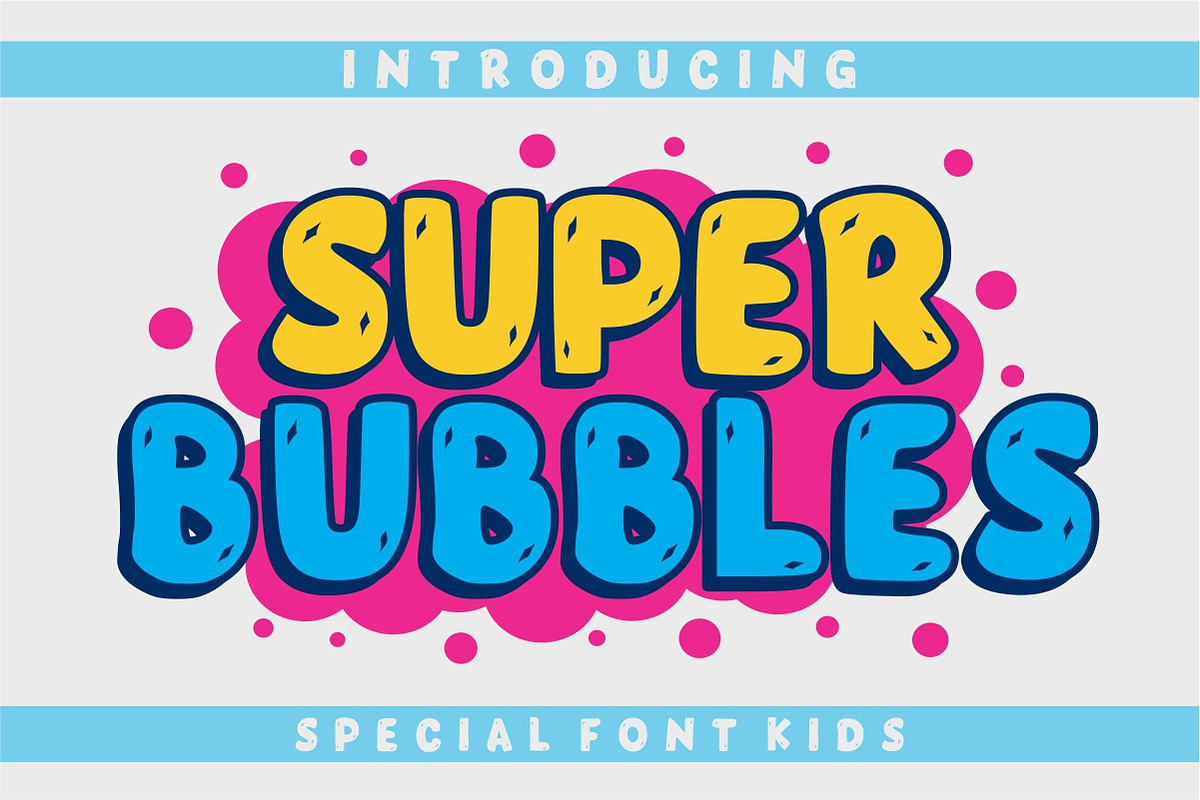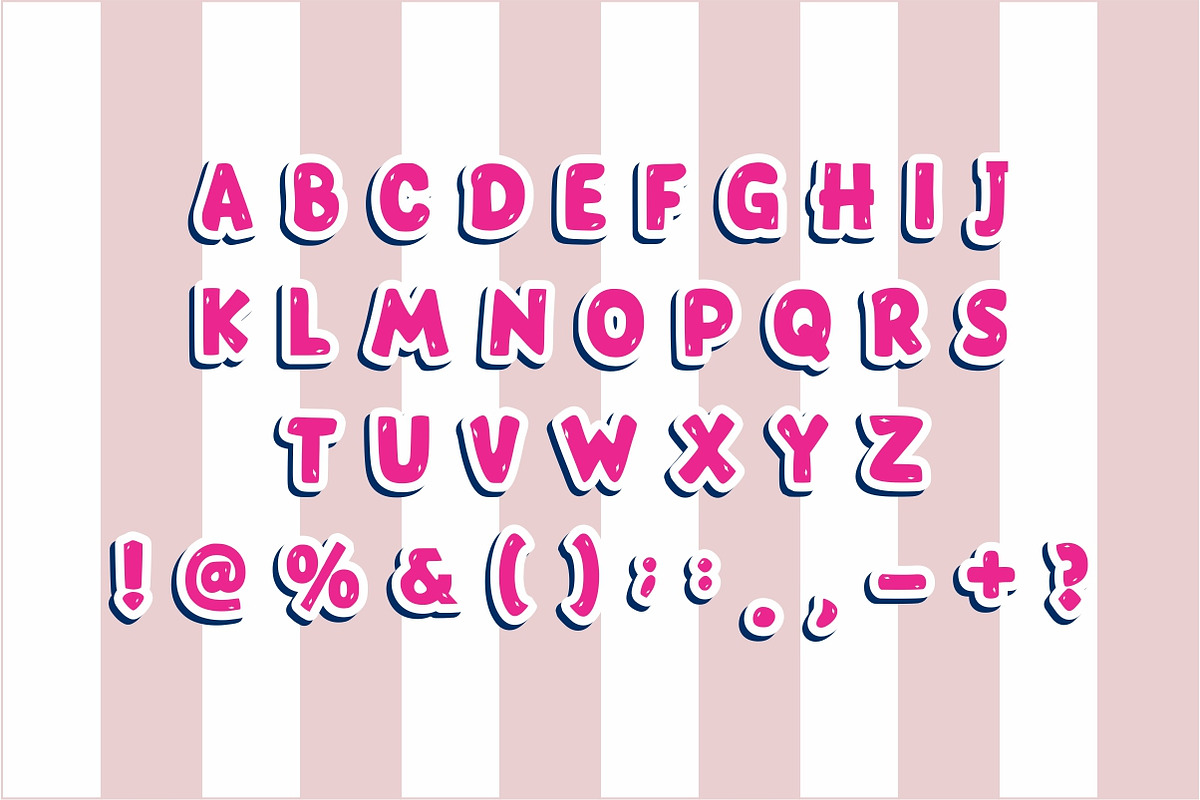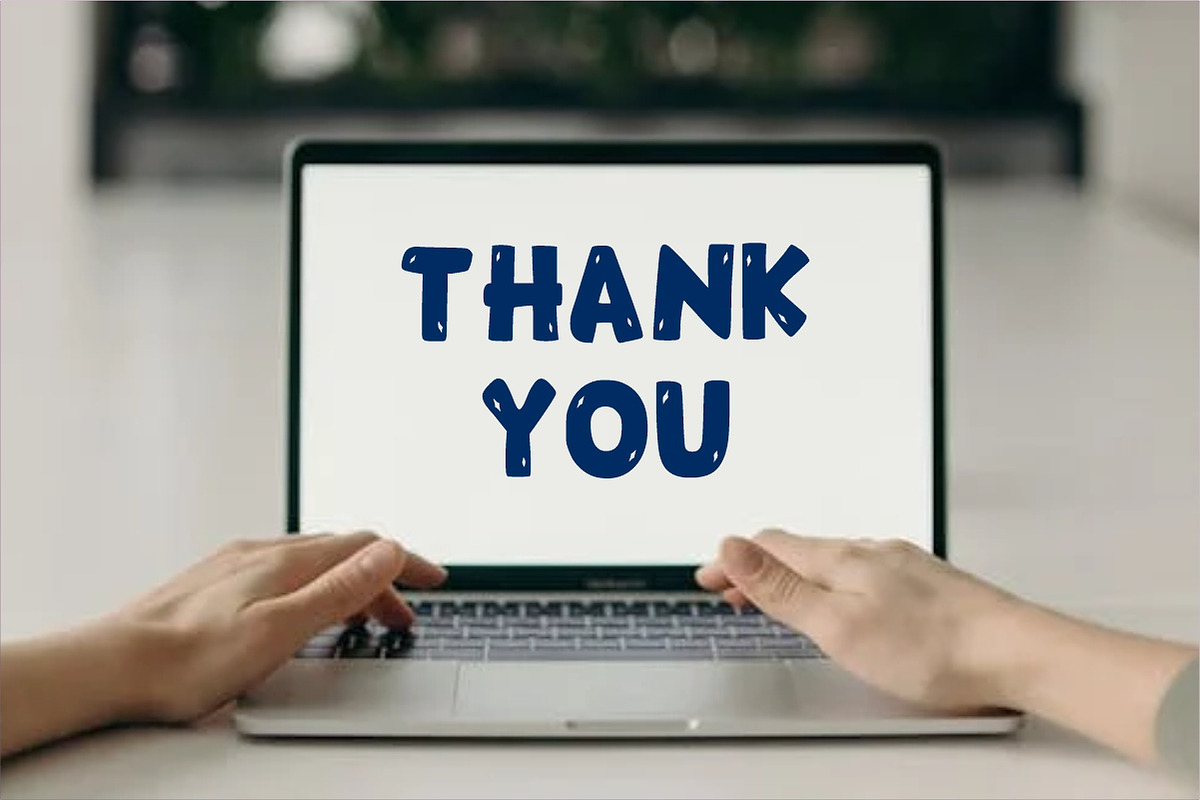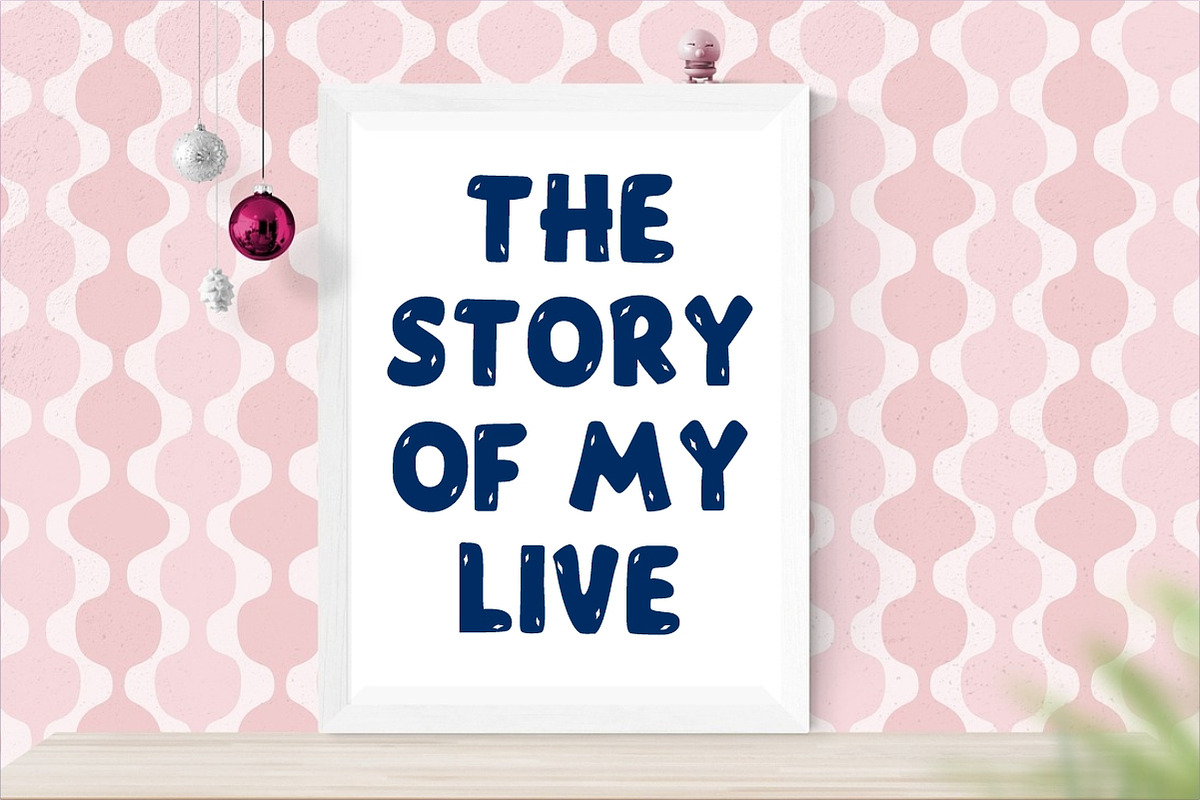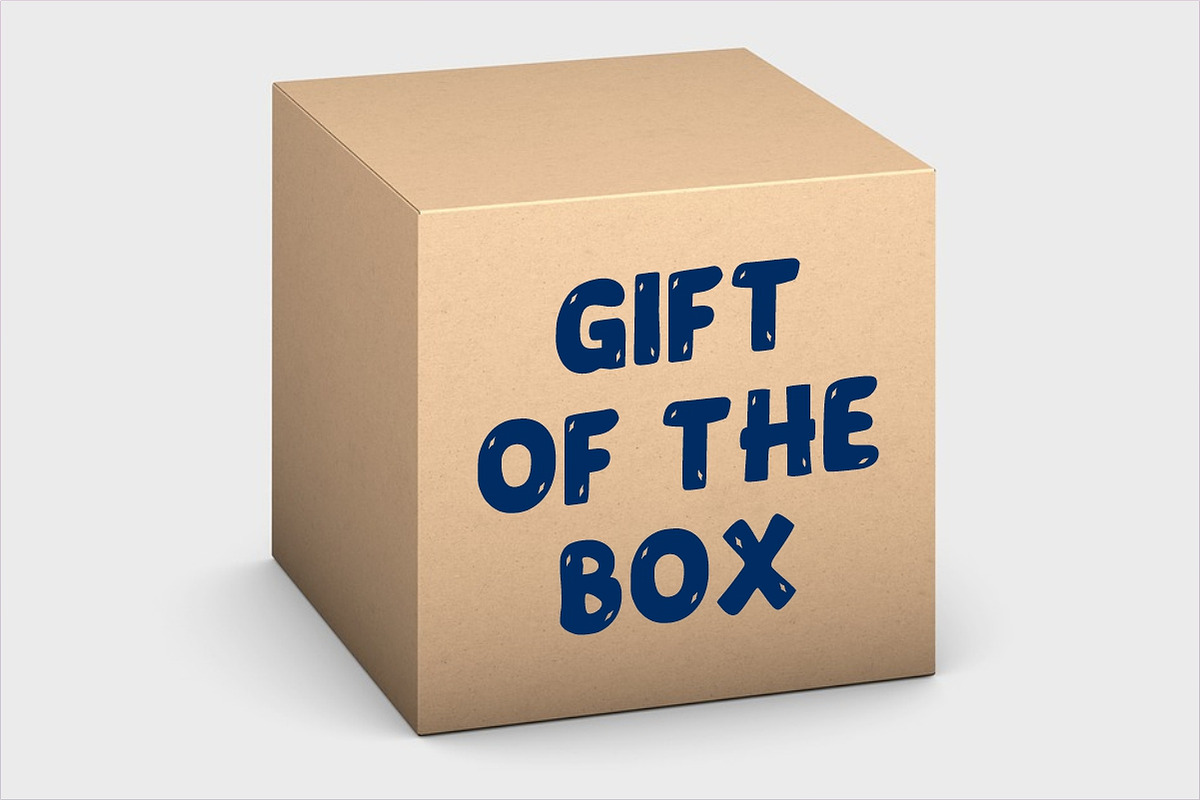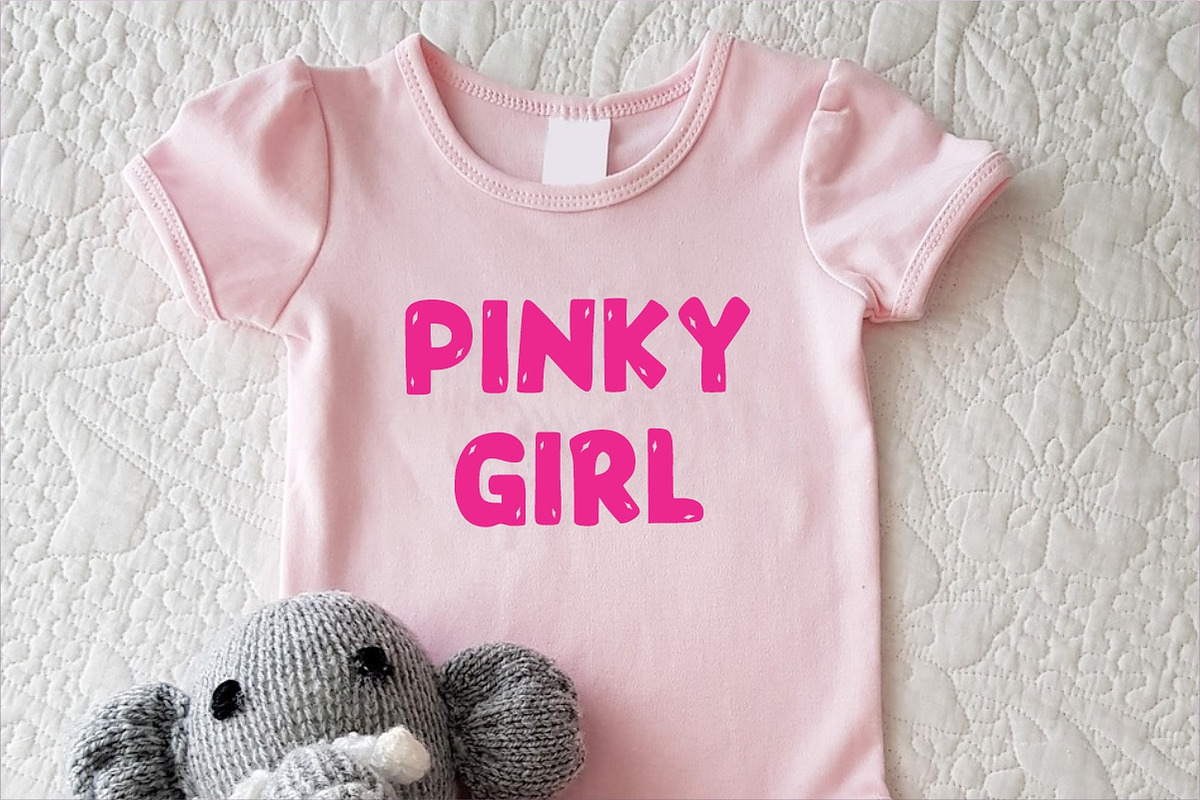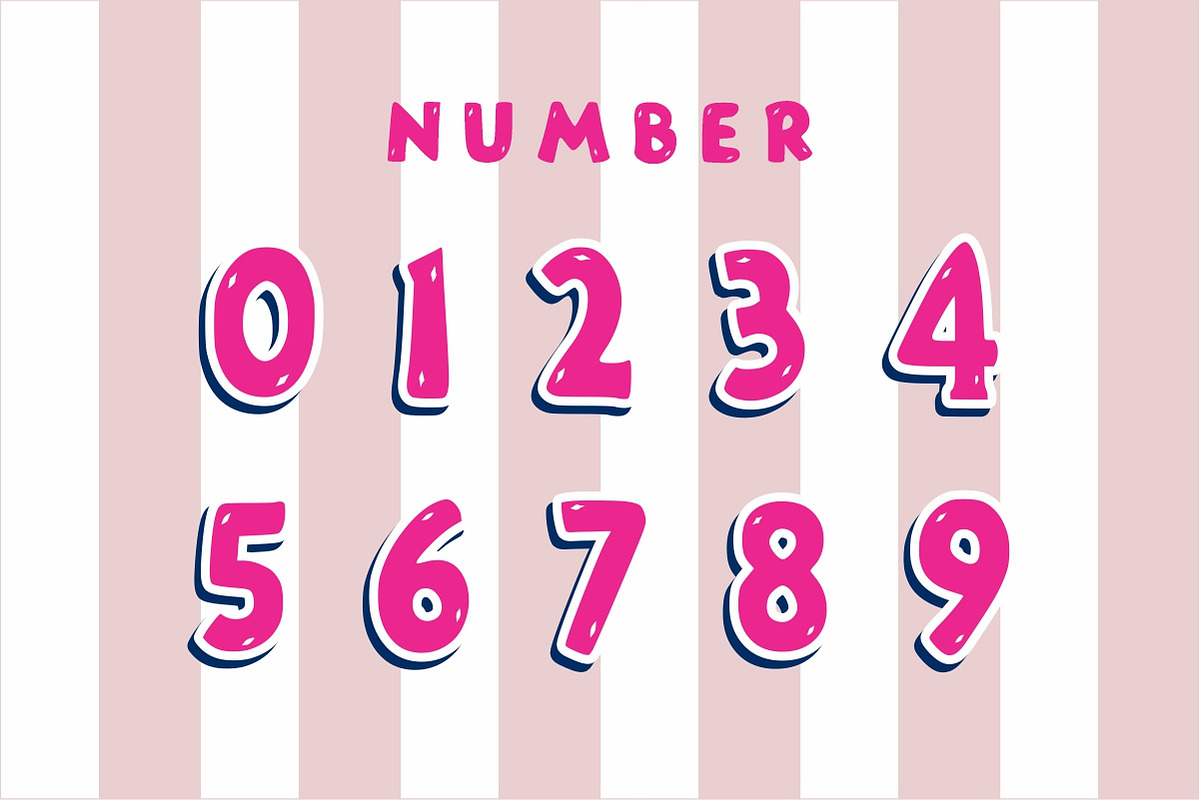
Super Bubbles
Super Bubbels is perfect for those of you who want the style of children.The perfect font for designing t-shirts, tote bags, hats, stickers, wedding invitations, logos, cards, quotes, and more!